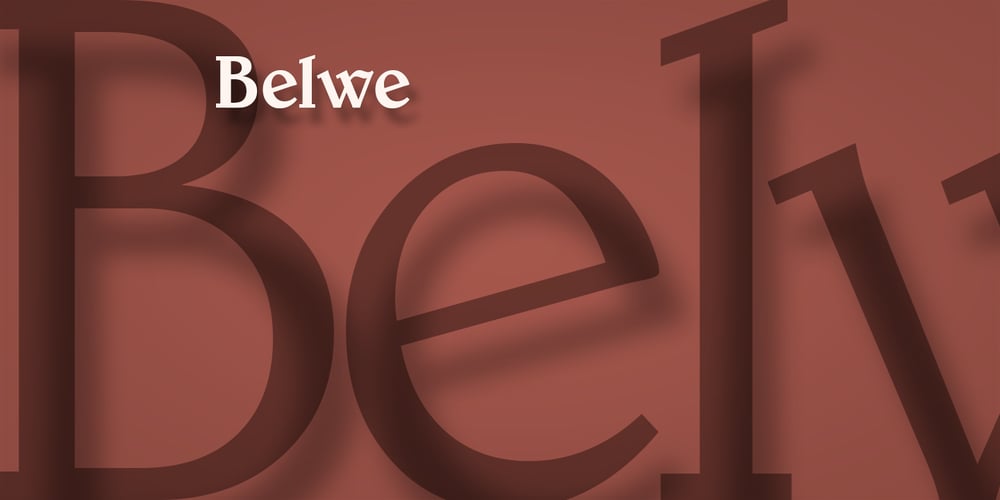
Belwe Font Family was designed by Georg Belwe and published by Bitstream. Belwe contains 4 styles and family package options. Designed by George Belwe for Schelter & Giesecke in Dresden, Belwe is one of the first typefaces to show the elements of the style we have classified as Kuenstler. Deliberately unusual proportions and detailing break with traditional rhythm and hint at blackletter connections.